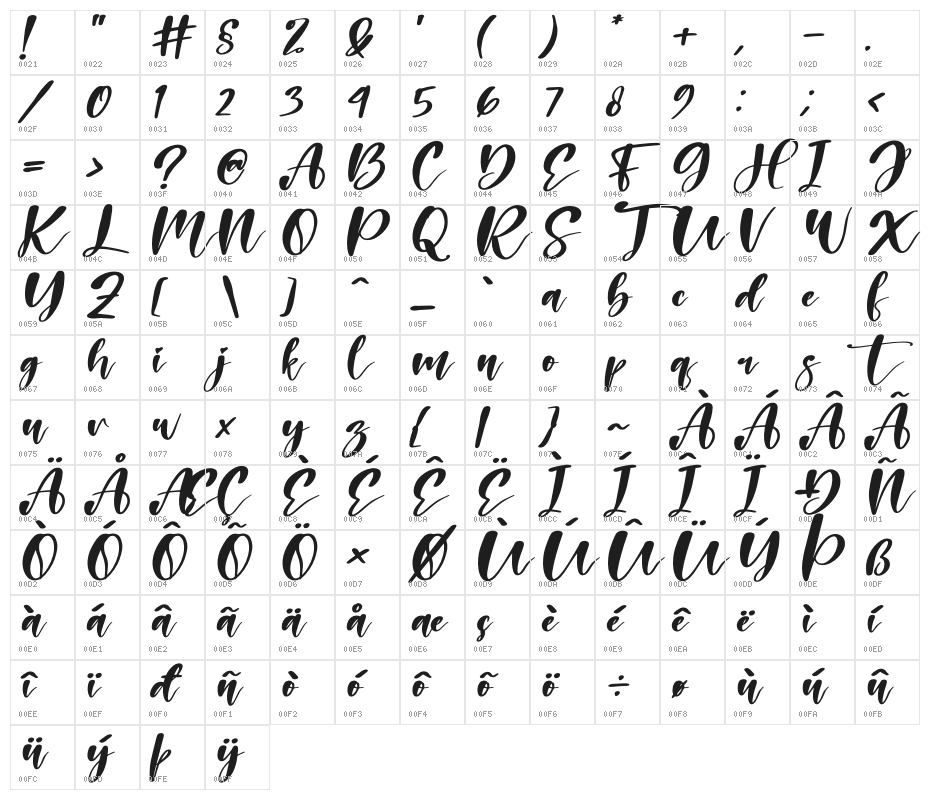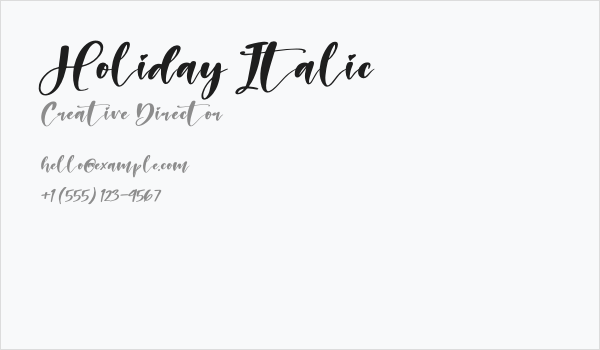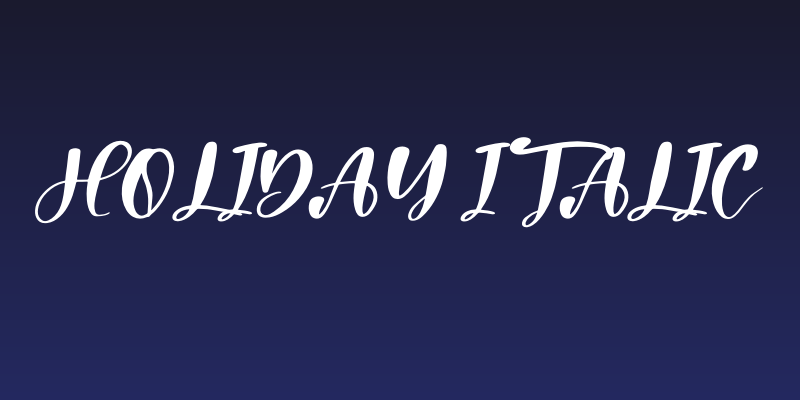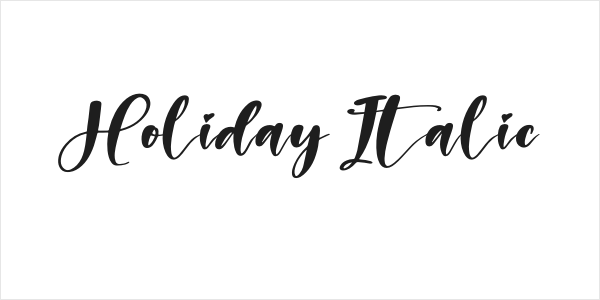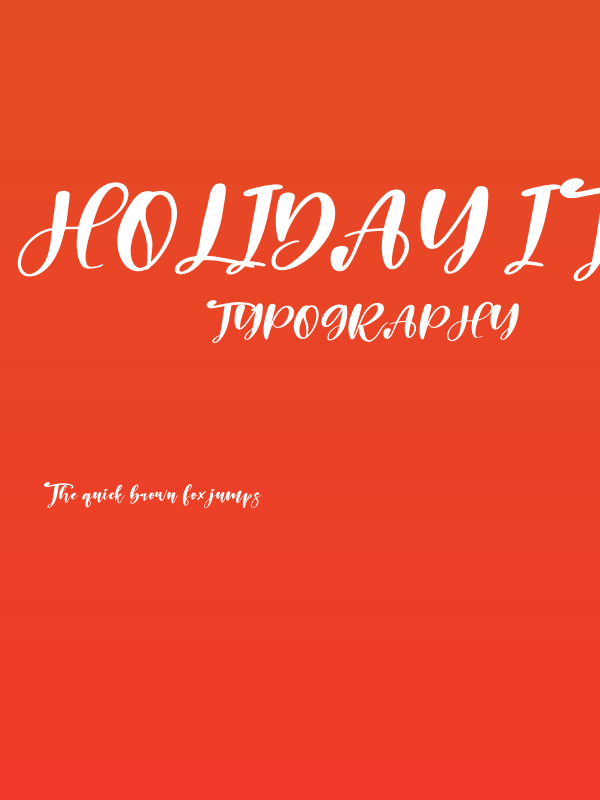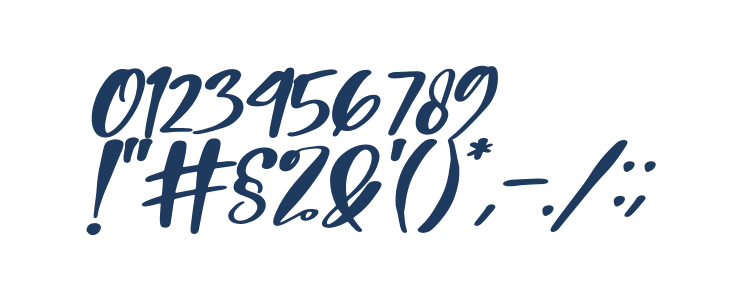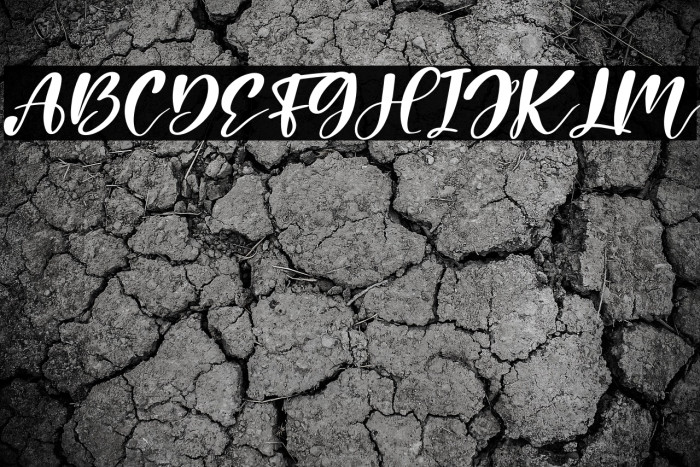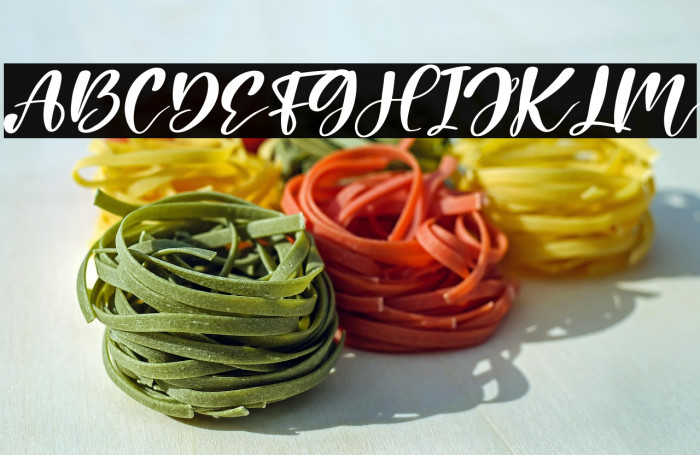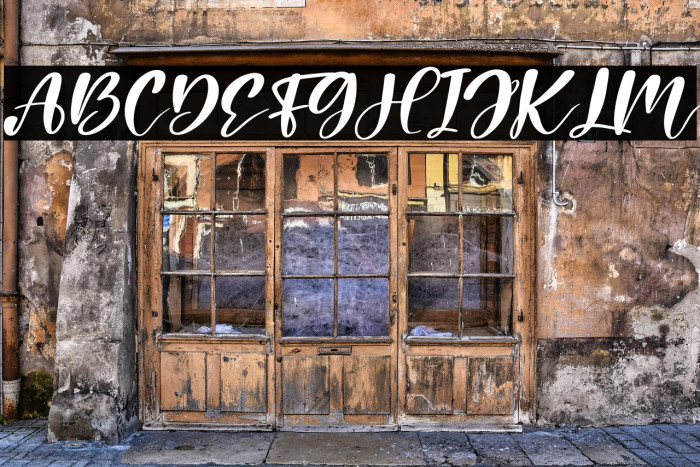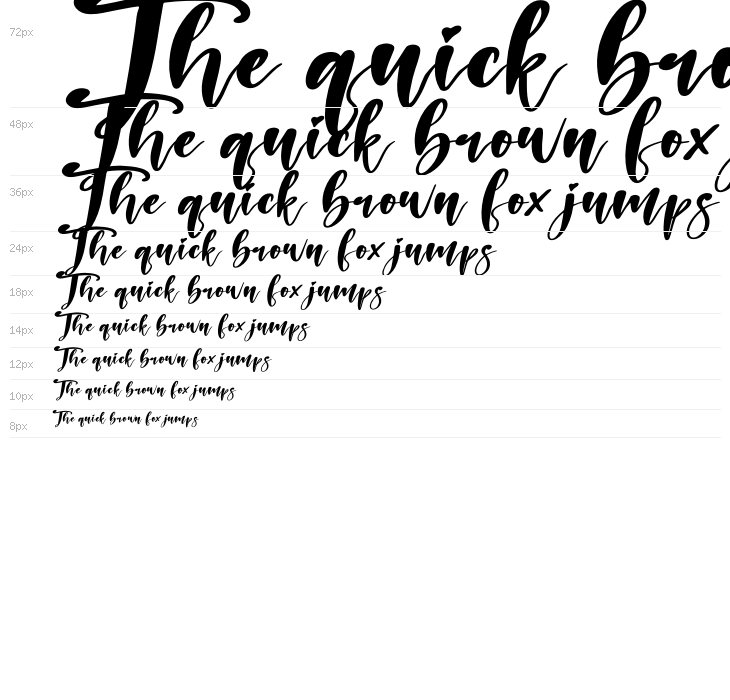
Holiday Italic Font
Holiday Italic Description
This font features a flowing, cursive style that exudes elegance and creativity. The characters are connected in a smooth, continuous manner, giving it a handwritten appearance. The strokes are bold and expressive, with a slight slant that enhances its dynamic feel. The uppercase letters are distinct and stylish, while the lowercase letters maintain a consistent flow. Numbers and special characters are designed to match the overall aesthetic, making it versatile for various uses. The font's artistic flair makes it ideal for projects that require a personal touch.